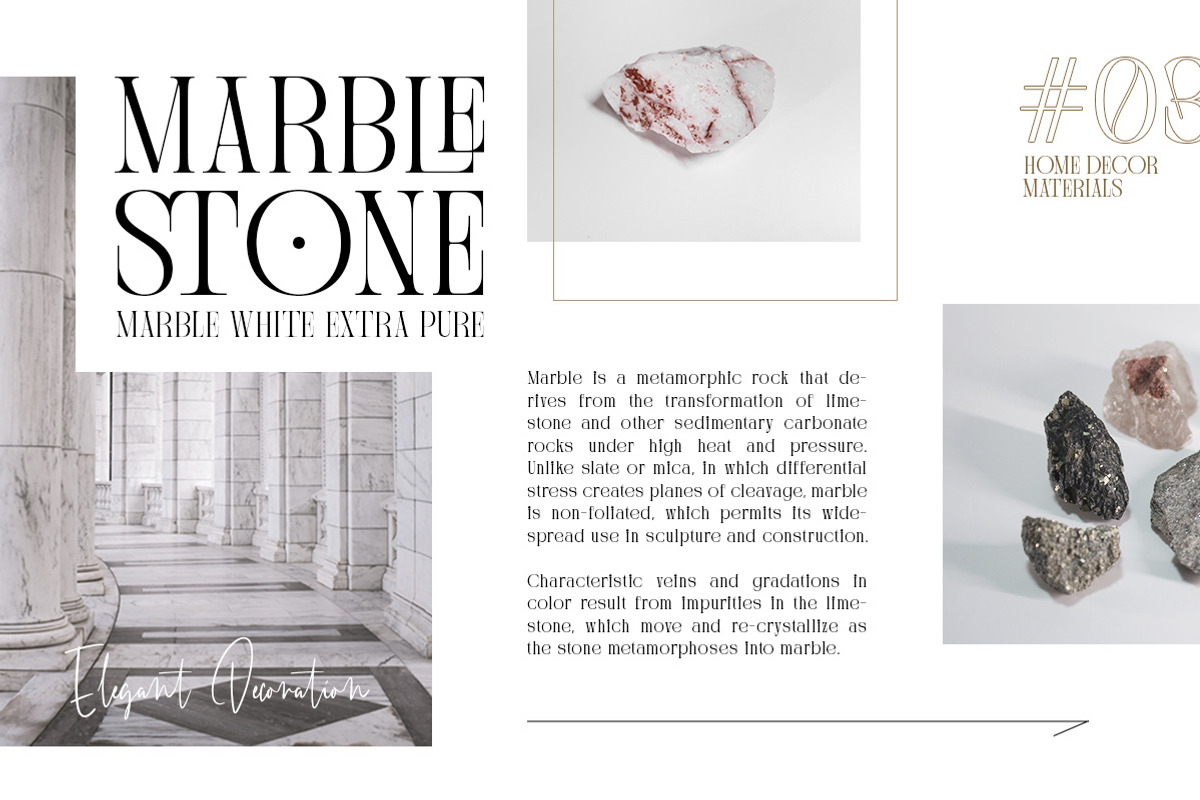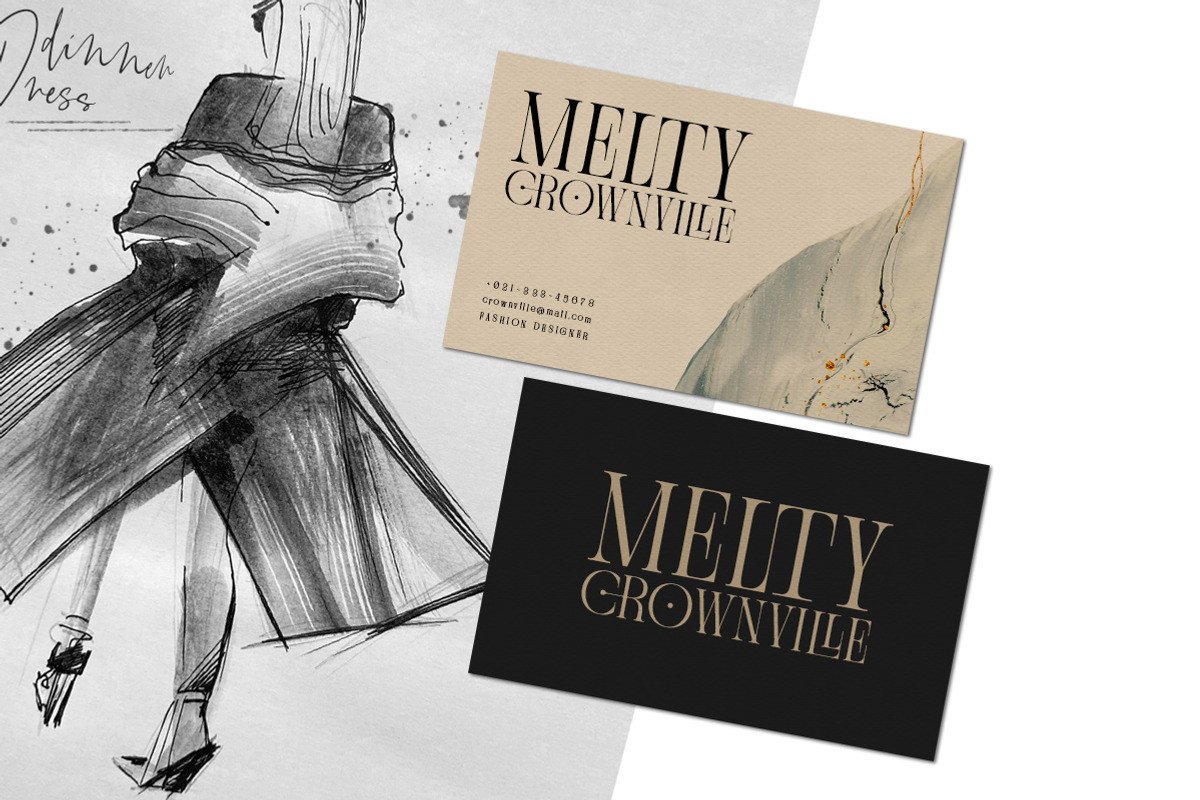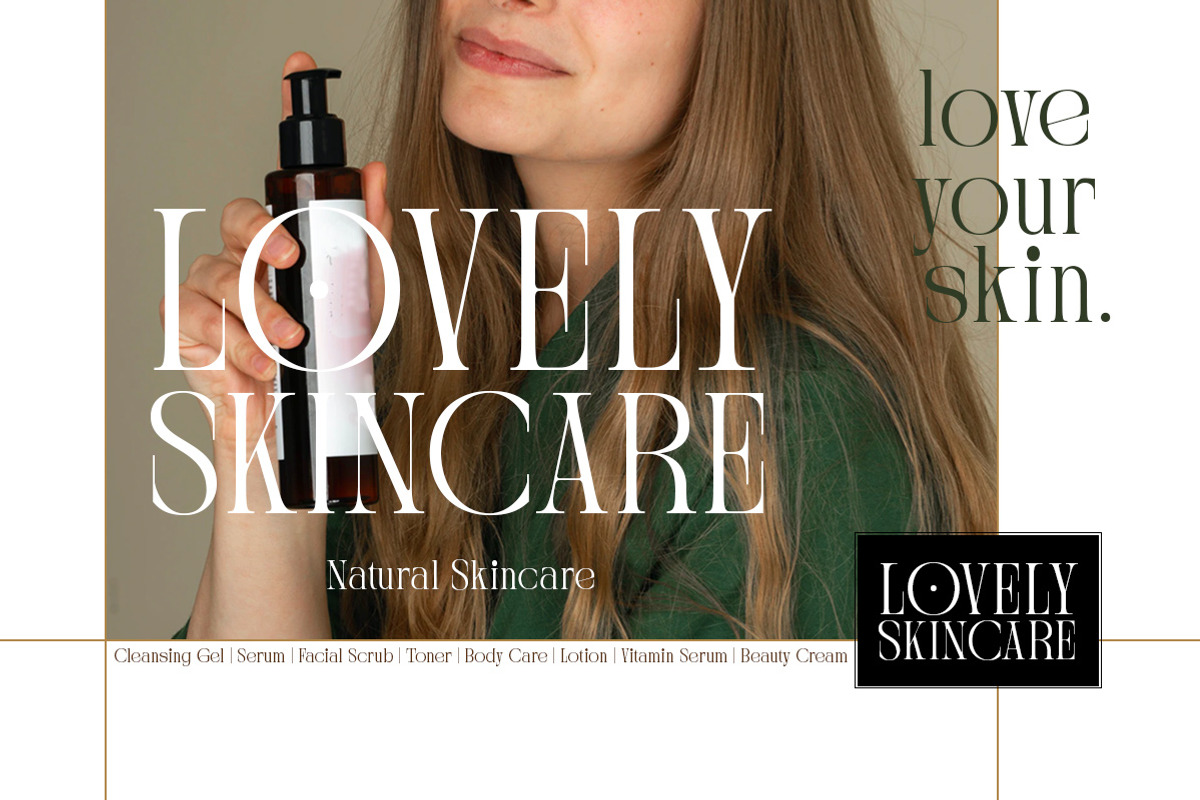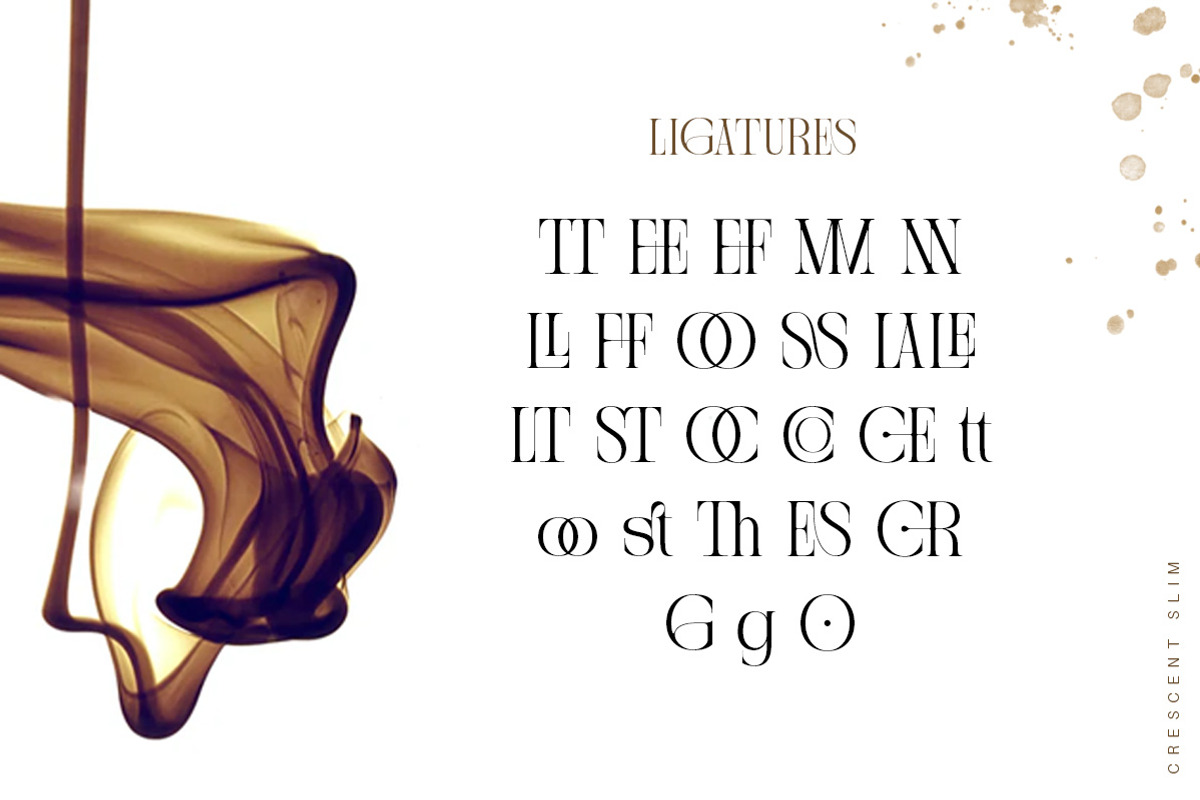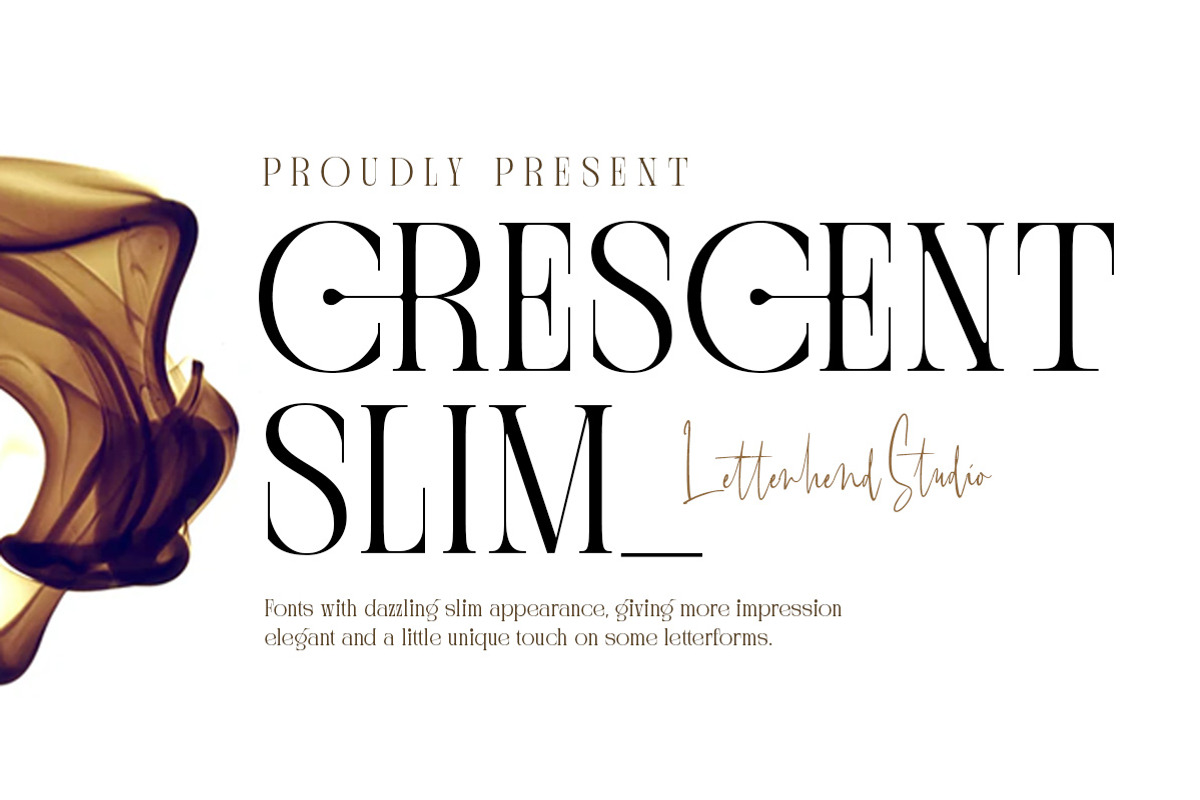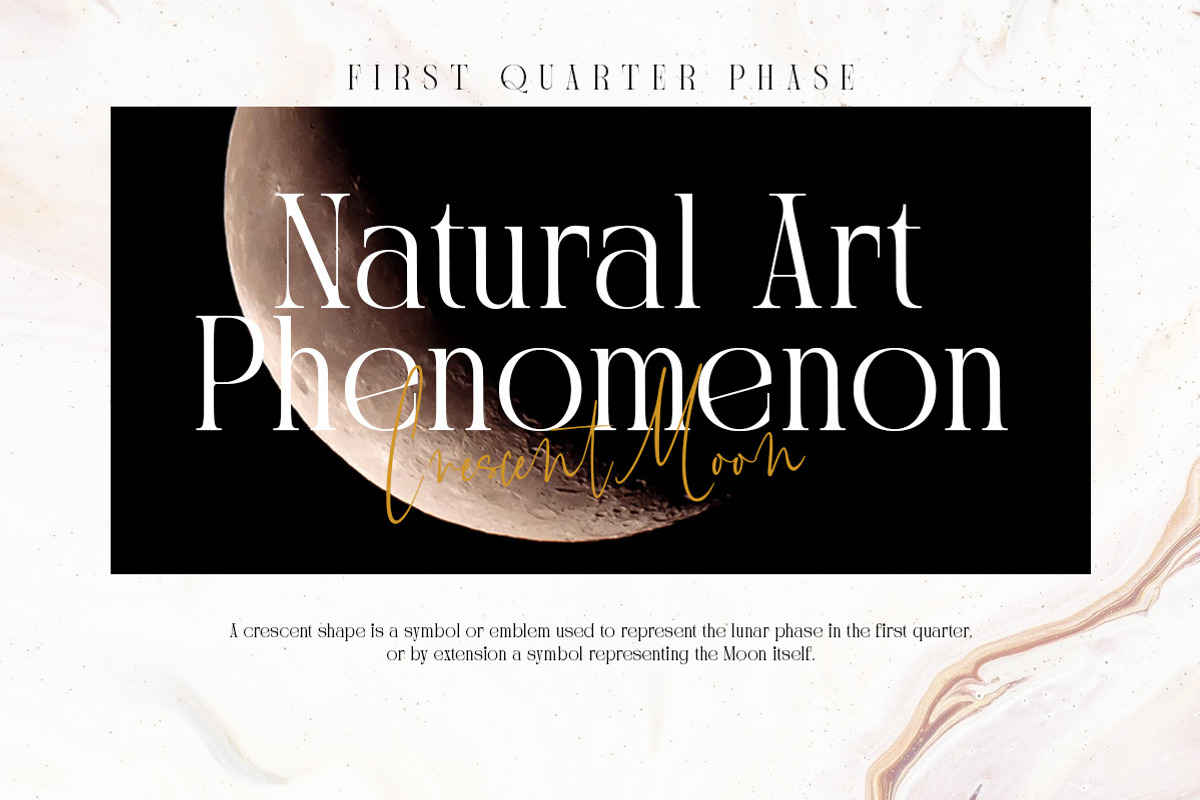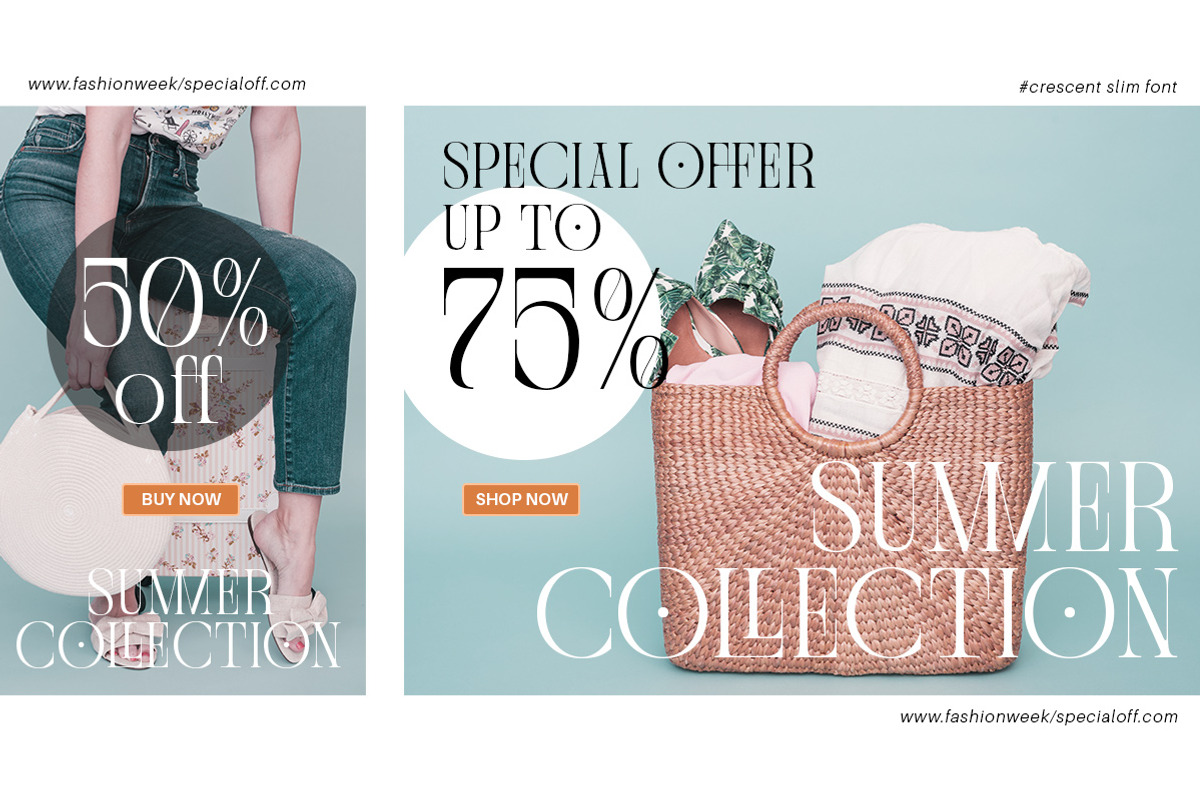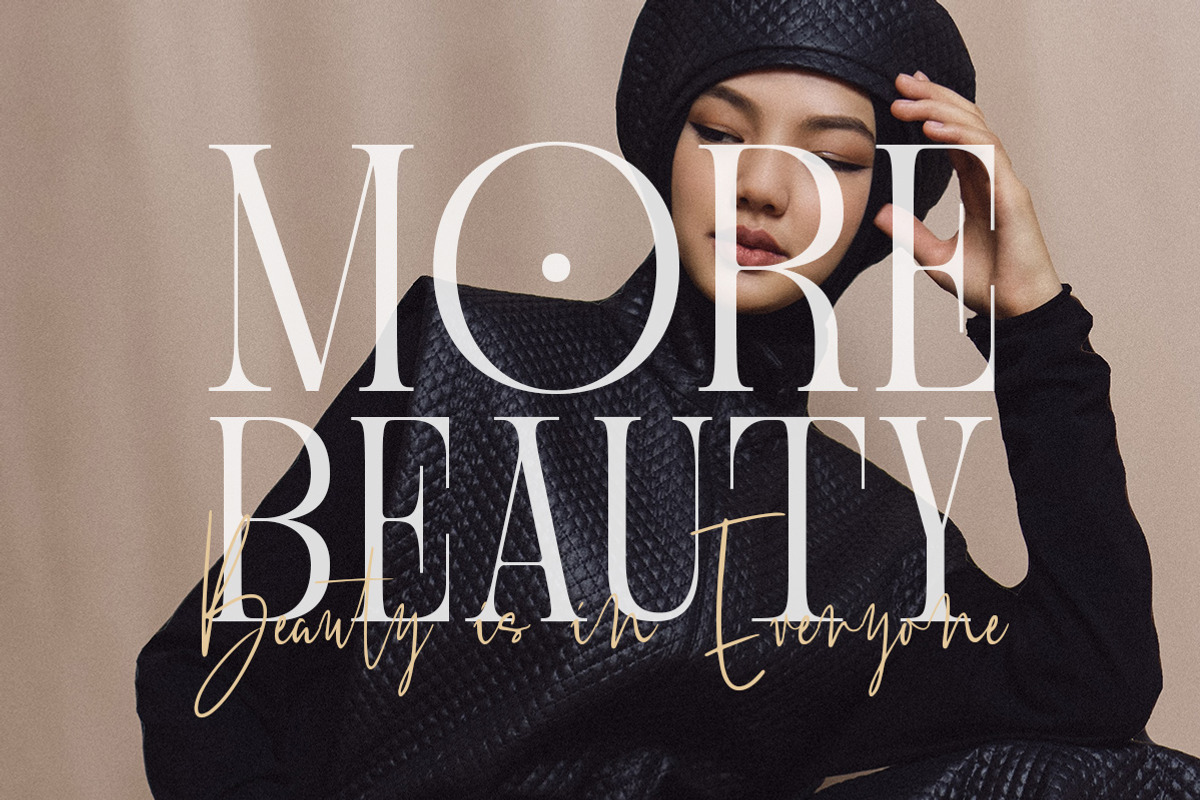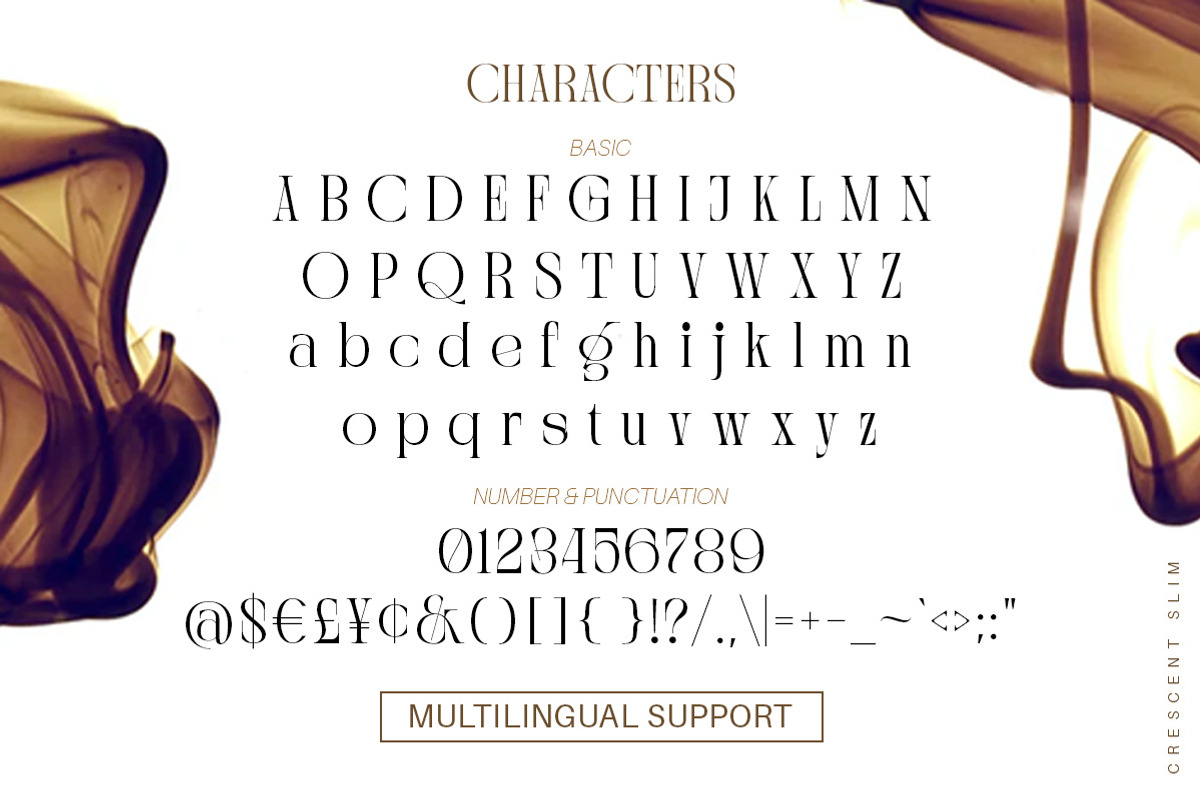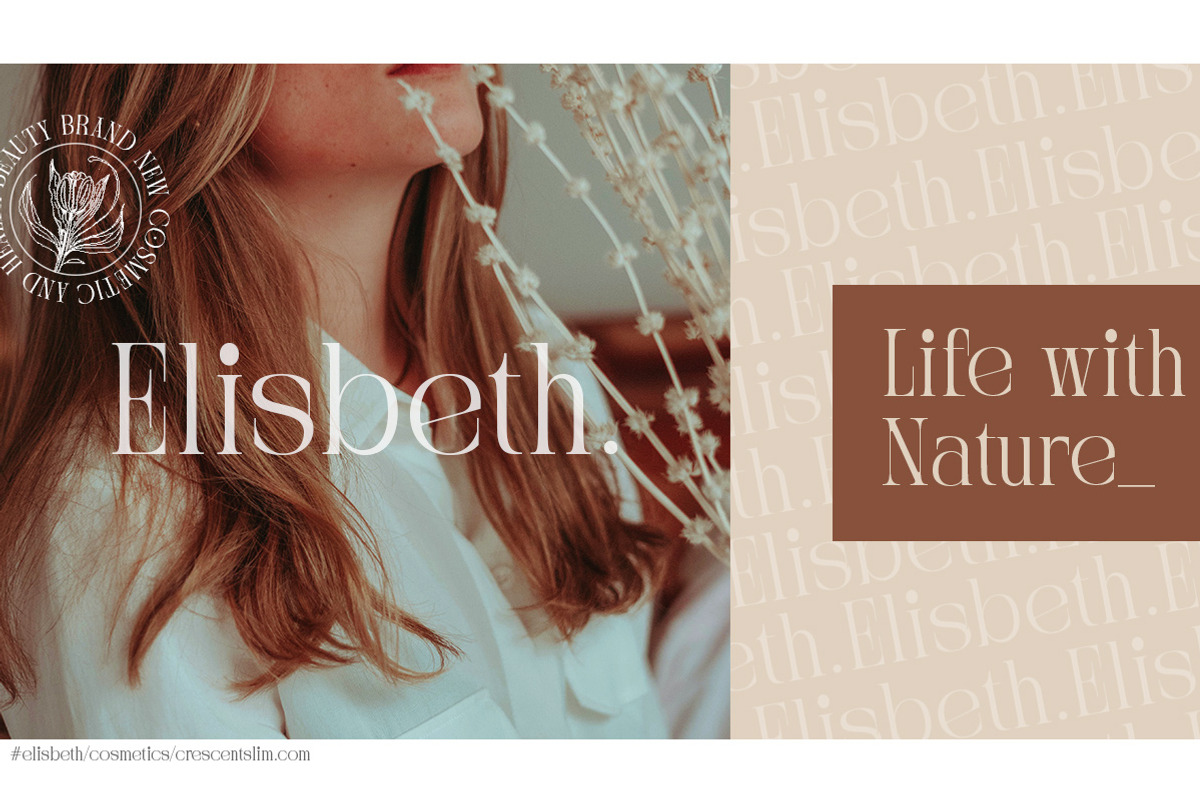
Crescent Slim - Stylish Serif Font
Introducing, Crescent Slim, A sophisticated ligature serif from us. This typeface has been made carefully to make sure its premium quality and luxury feel. The ligatures makes this typeface unique and stands out rather than the regular serif font, very suitable for logo, headline, tittle, and the other various formal forms such as invitations, labels, logos, magazines, books, greeting / wedding cards, packaging, fashion, make up, stationery, novels, labels or any type of advertising purpose.
- alternates